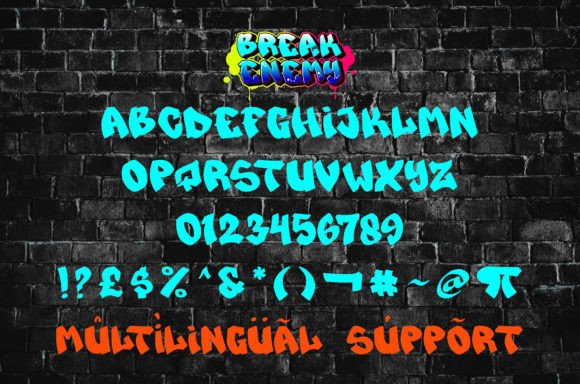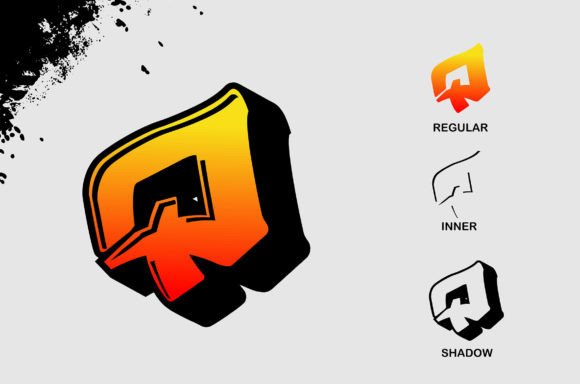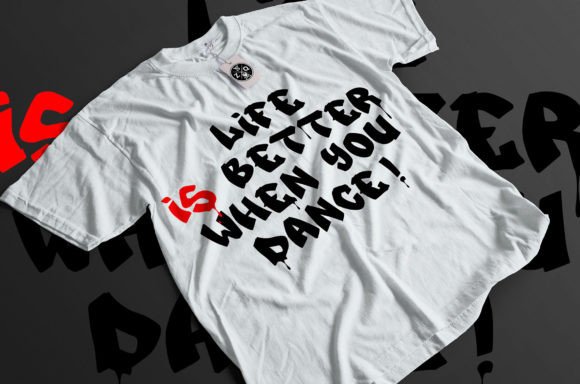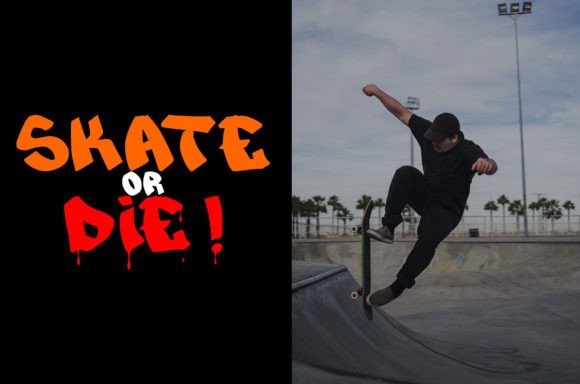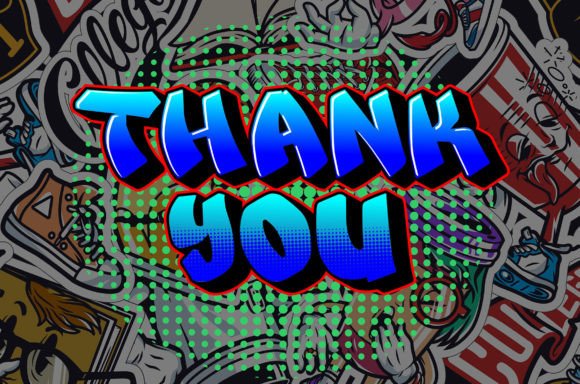
Unleash Your Creativity with Break Enemy Font: The Ultimate Urban Graffiti Style
Are you a designer or crafter looking for a font that can add a touch of edginess to your projects? Look no further than Break Enemy Font, an urban graffiti style font characterized by sharp edges and a bold look. This font is perfect for music posters, apparel designs, shirts, and streetwear, and is sure to make your designs stand out from the crowd.
The Unique Style of Break Enemy Font
Break Enemy Font is a one-of-a-kind font that is inspired by the urban graffiti style. Its sharp edges and bold look give it a unique and edgy feel that is perfect for designers who want to create a strong and powerful statement. The font’s urban graffiti style is characterized by its bold lines, sharp angles, and distressed texture, which gives it a raw and unbridled energy.
Ideal for Music Posters and Apparel Designs
Break Enemy Font is ideal for music posters, apparel designs, shirts, and streetwear. Its bold and edgy style makes it perfect for creating eye-catching designs that will grab attention. Whether you’re designing a poster for a music festival, a t-shirt for a streetwear brand, or a hoodie for a music artist, Break Enemy Font is the perfect choice.
Add a Touch of Attitude to Your Designs
Break Enemy Font is not just a font, it’s an attitude. It’s a way to add a touch of edginess and rebellion to your designs. With its sharp edges and bold look, this font is perfect for designers who want to create designs that are bold, daring, and unconventional. Whether you want to create a strong and powerful statement or simply add a touch of attitude to your designs, Break Enemy Font is the perfect choice.
Perfect for Street Style and Urban Graffiti Themes
Break Enemy Font is perfect for street style and urban graffiti themes. Its unique style and edgy feel make it ideal for designers who want to create designs that are inspired by the urban graffiti style. Whether you’re designing a logo for a streetwear brand, a poster for a graffiti exhibition, or a t-shirt for a urban artist, Break Enemy Font is the perfect choice.
Key Features of Break Enemy Font
- Urban Graffiti Style: Break Enemy Font is inspired by the urban graffiti style, characterized by sharp edges and a bold look.
- Sharp Edges: The font’s sharp edges give it a unique and edgy feel that is perfect for designers who want to create bold and daring designs.
- Bold Look: The font’s bold look makes it perfect for creating eye-catching designs that will grab attention.
- Ideal for Music Posters and Apparel Designs: Break Enemy Font is ideal for music posters, apparel designs, shirts, and streetwear.
- Perfect for Street Style and Urban Graffiti Themes: The font’s unique style and edgy feel make it perfect for designers who want to create designs that are inspired by the urban graffiti style.
Tips and Tricks for Using Break Enemy Font
- Experiment with Different Colors: Break Enemy Font looks great in bold and bright colors. Experiment with different colors to create designs that are eye-catching and bold.
- Use it with Other Fonts: Break Enemy Font can be used with other fonts to create a unique and interesting design. Try pairing it with a sans-serif font for a bold and edgy look.
- Add Texture and Effects: Adding texture and effects to your design can help to give it a more urban and graffiti-inspired look. Try adding a distressed texture or a bold gradient effect to your design.
| Font Name | Break Enemy Font |
| Author | Cikareotype |
Break Enemy Font is a unique and edgy font that is perfect for designers who want to add a touch of attitude to their designs. Its urban graffiti style and bold look make it ideal for music posters, apparel designs, shirts, and streetwear. With its sharp edges and bold look, this font is sure to make your designs stand out from the crowd. So why wait? Download Break Enemy Font today and start creating bold and daring designs that will leave a lasting impression.